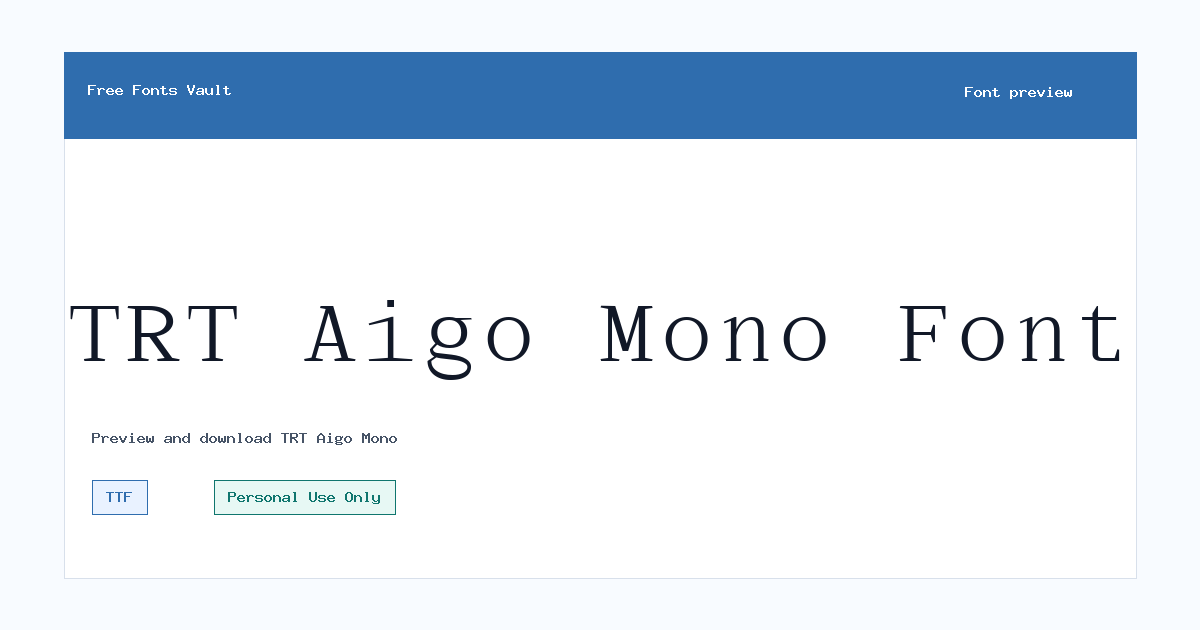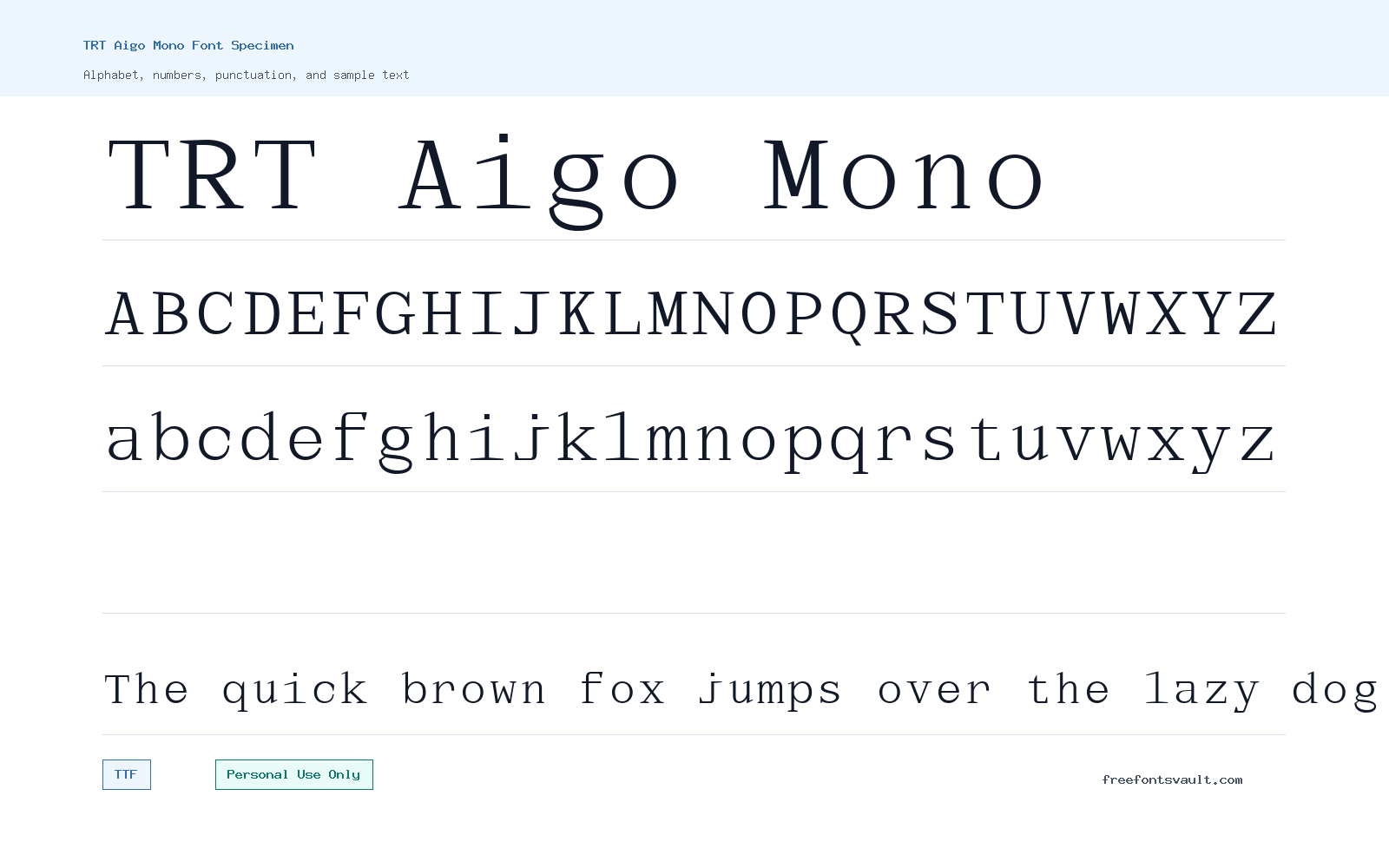
TRT Aigo Mono
• Designer Achmad Akbar Afiansyah of Truetype
• Foundry Truetype
TRT Aigo Mono is a personal-use font family from Truetype, designed by Achmad Akbar Afiansyah. It comes in Regular and Bold TTF styles, giving visitors a simple way to test lighter and stronger text settings before downloading.
About TRT Aigo Mono
TRT Aigo Mono is best approached as a display-friendly mono-style family rather than a font to drop into long paragraphs without testing. The name suggests a structured, even-rhythm design, while the Regular and Bold styles make it useful for comparing clean headline settings against heavier title treatments. Use the preview box to check how the font handles short words, numbers, punctuation, and mixed uppercase/lowercase text. Those tests matter with mono-inspired fonts because spacing, word shape, and symbol width can change the feel of a design very quickly.
For design work, TRT Aigo Mono can suit projects that need a tidy technical tone, compact branding text, poster titles, social graphics, web mockup headings, packaging concepts, or UI-style typography experiments. The Bold style is the better starting point for logos, badges, short promotional lines, and hero headers, while the Regular style is more useful for labels, captions, menus, and supporting text. If you plan to use it in a logo, keep the wording short and test it at small sizes, because mono-style spacing can make some names feel wider than expected. For posters and web mockups, try it with generous spacing and a simpler secondary font so the layout does not become too rigid.
• Mono-style naming and even-weight options that can work well for technical, editorial, or modern display layouts.
• Regular weight for labels, captions, menus, and quieter supporting typography.
• Bold weight for stronger titles, logo drafts, poster headlines, and social media graphics.
• Personal logo drafts and wordmark experiments
• Poster titles and event-style graphics
• Website hero headings and landing page mockups
• Social media quote cards or announcement images
• Tech-themed layouts, labels, and interface-inspired compositions
• Packaging concepts, badges, stickers, and short display text
• Typography testing in design apps before choosing a final commercial font
TRT Aigo Mono is credited to Achmad Akbar Afiansyah of Truetype.
Is TRT Aigo Mono good for body text?
It may work better for short text than long reading passages. Test paragraphs carefully, especially at smaller sizes, because mono-style spacing can affect comfort and line length.